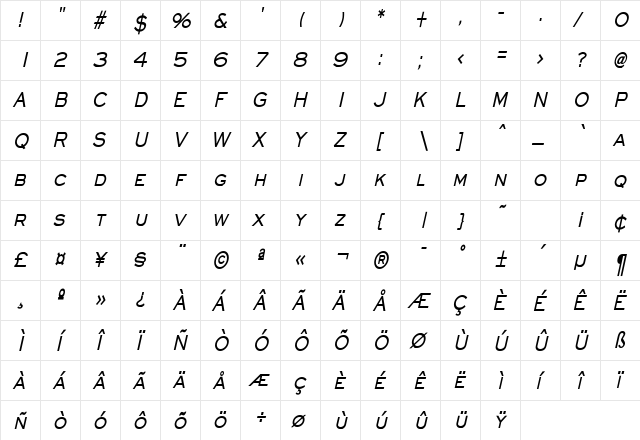
Eye glass Thin Bold Italic Font Preview
Eye glass Thin Bold Italic
Eye glass Thin Bold Italic Font Details
Design Context for Eye glass Thin Typeface
Eye glass Thin is a composed and adaptable typeface that performs quietly and consistently across a wide range of design contexts. Its italic angle brings a sense of urgency and motion to the letterforms. Its bold stroke weight gives it real presence on the page.
Pro Tip: Try Eye glass Thin for annotation and caption copy alongside an upright companion — the contrast in angle creates a dynamic but ordered typographic system.